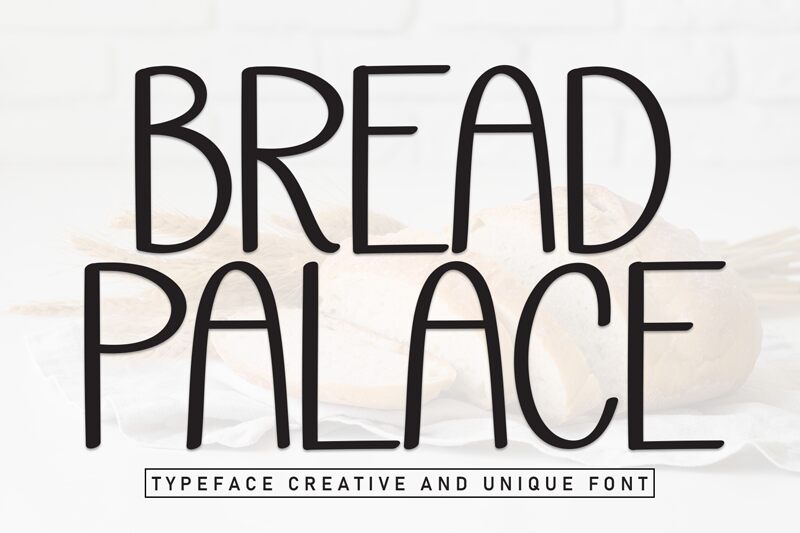
Bread Palace
Bread Palace font by Andi Moz is a free simple handwritten font presented with a rounded design. Its casual appearance, suitable for approachable branding projects or friendly food packages, shows a handcrafted feel of an elegant and modern touch. This modern display font is sure to attract all the needed attention.
Use Bread Palace font to create items that are still visible and legible including names and titles for books, blog headlines, posters, stationery designs, food packages like milk boxes or chocolate bags as well as branding projects of hotels or restaurants among others.